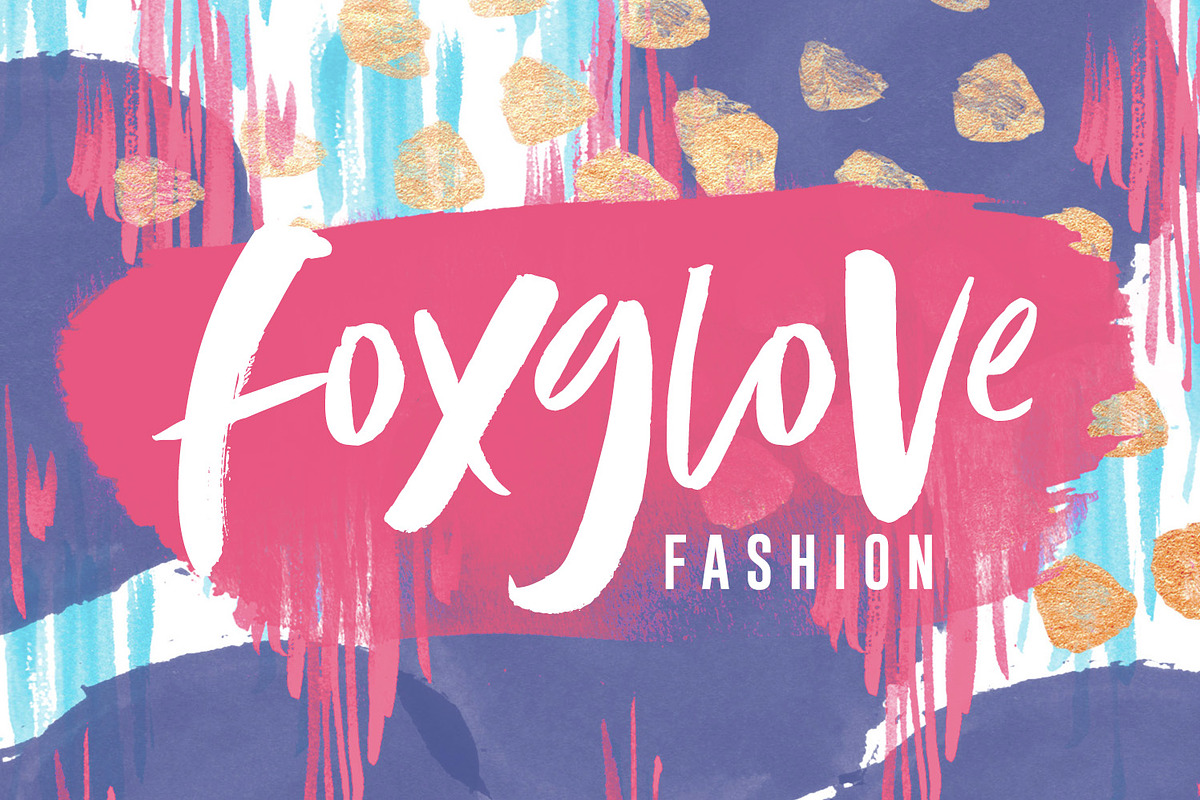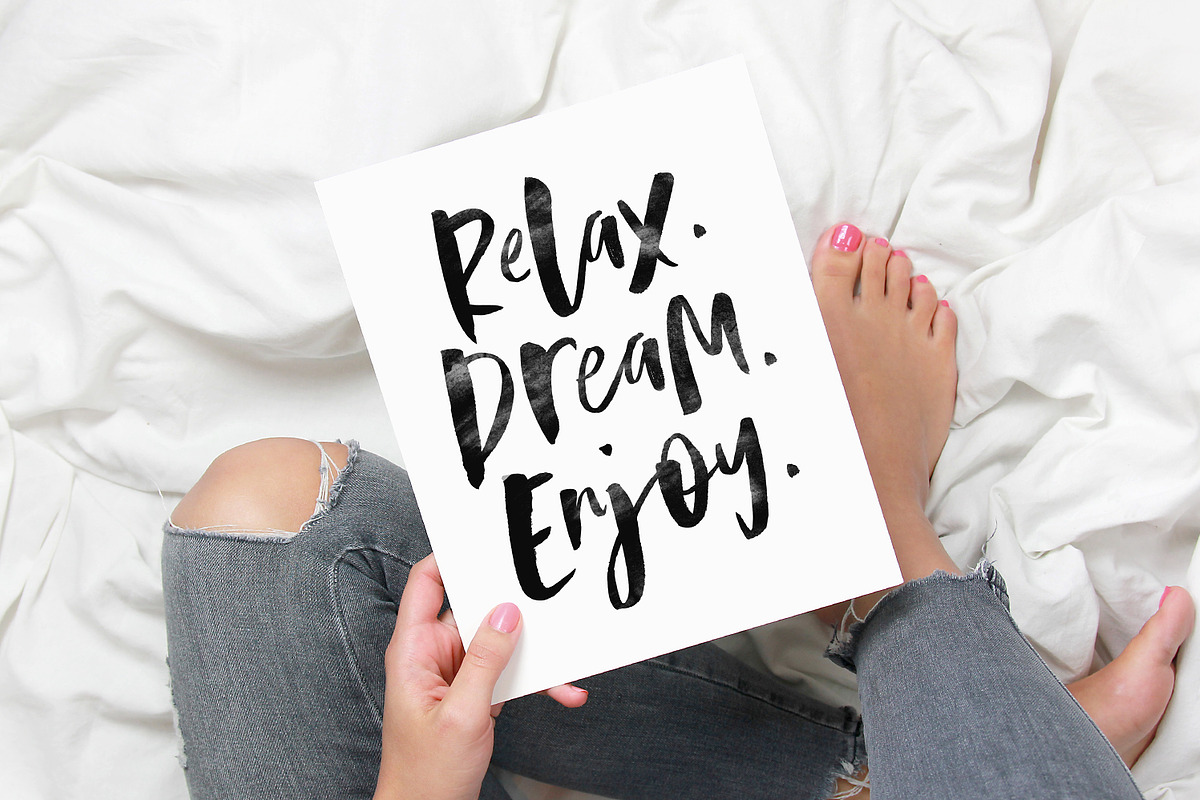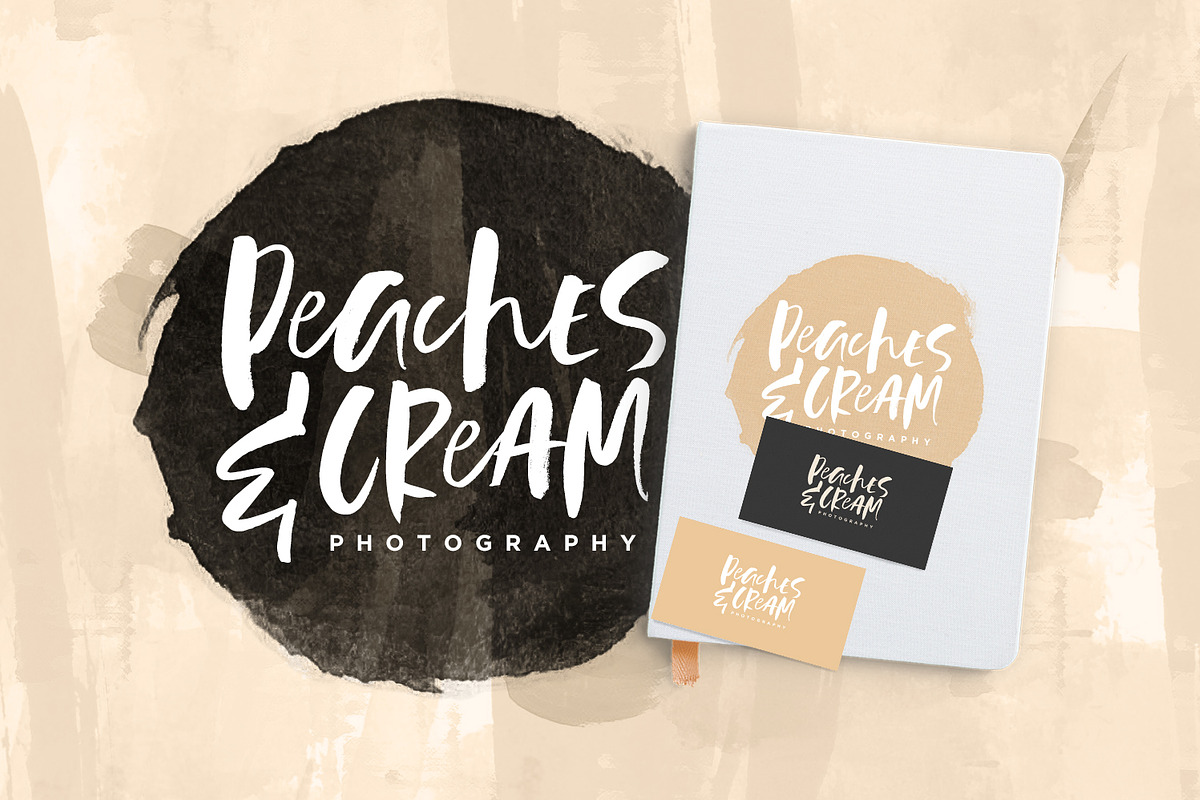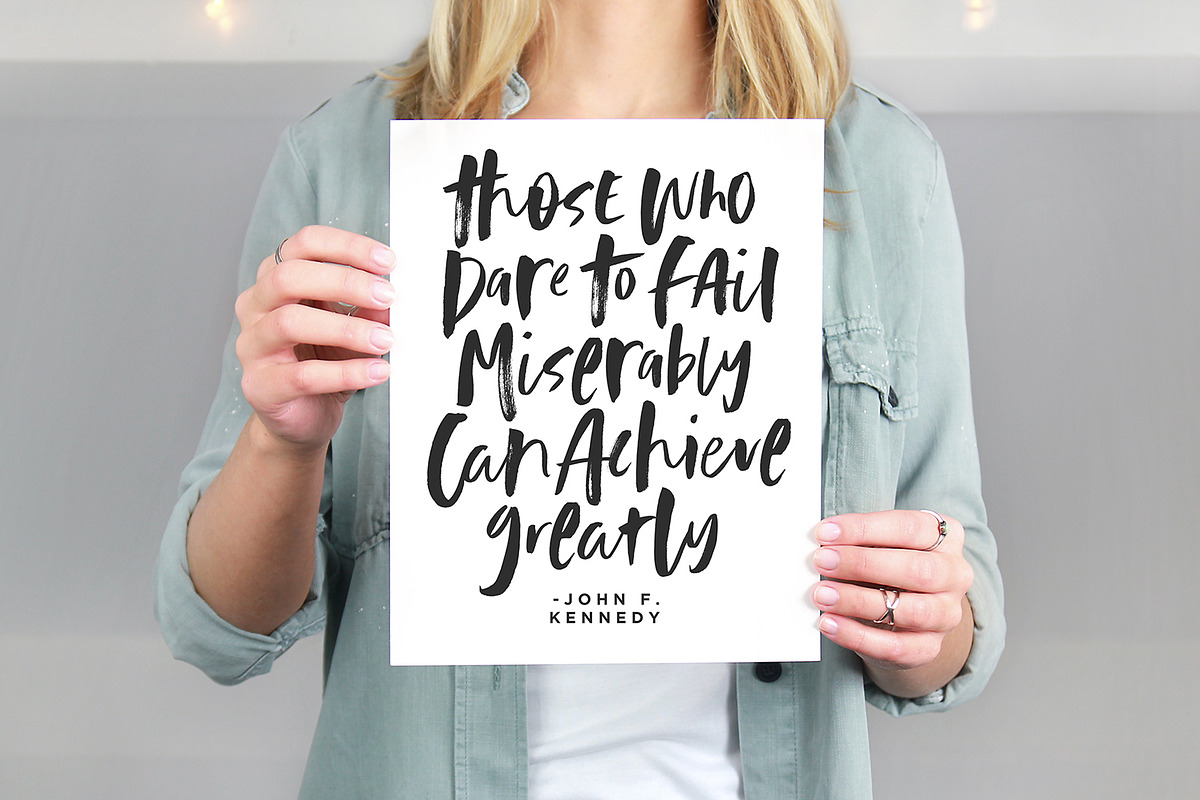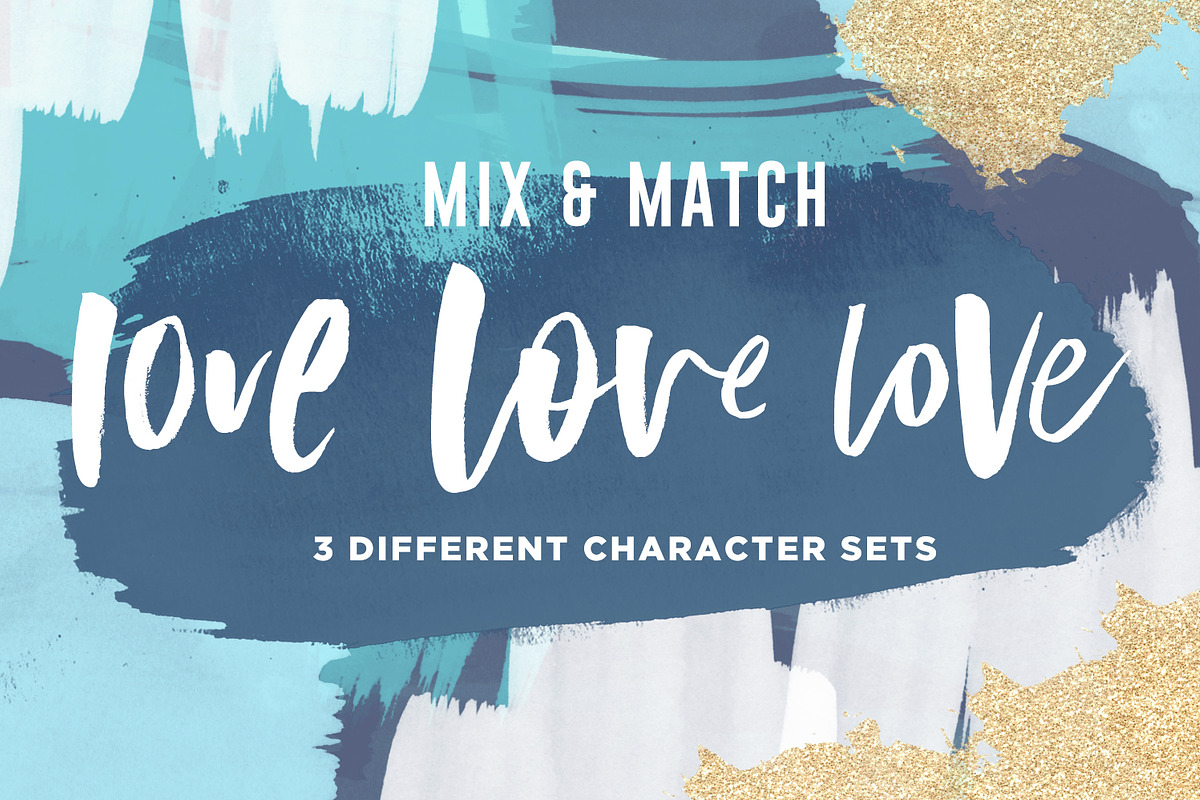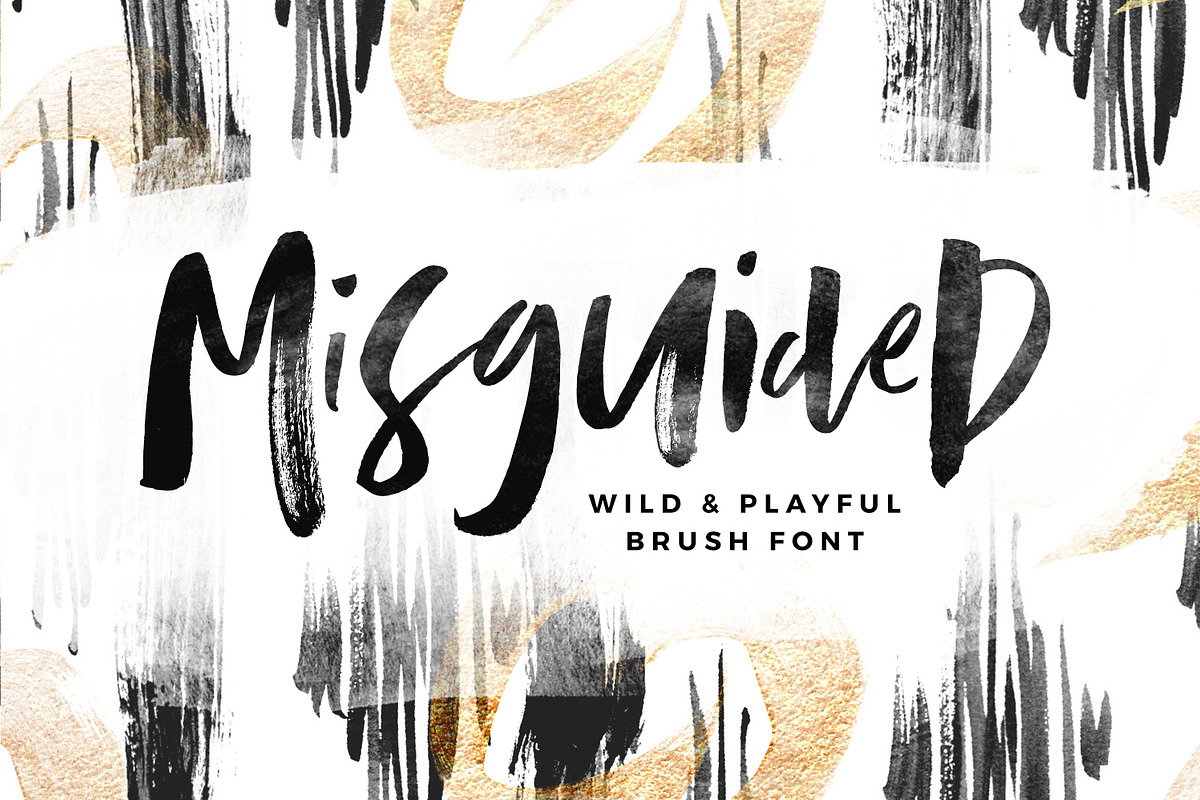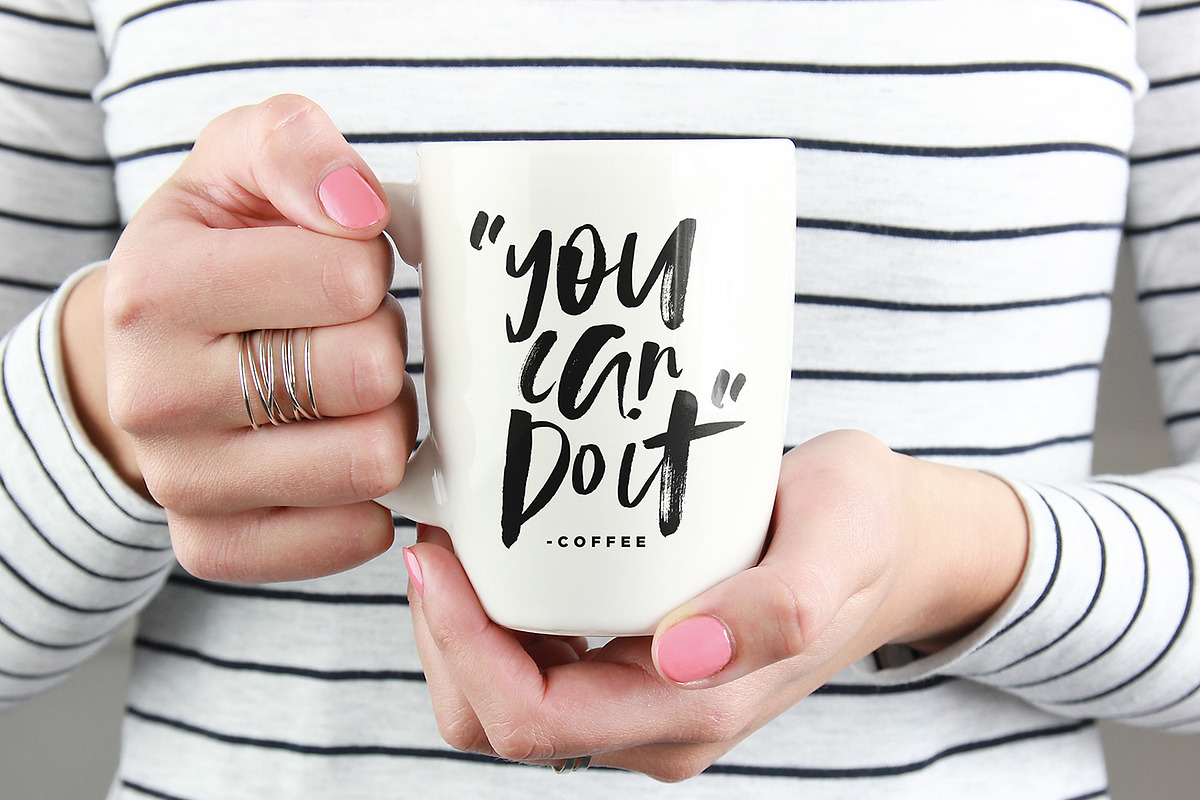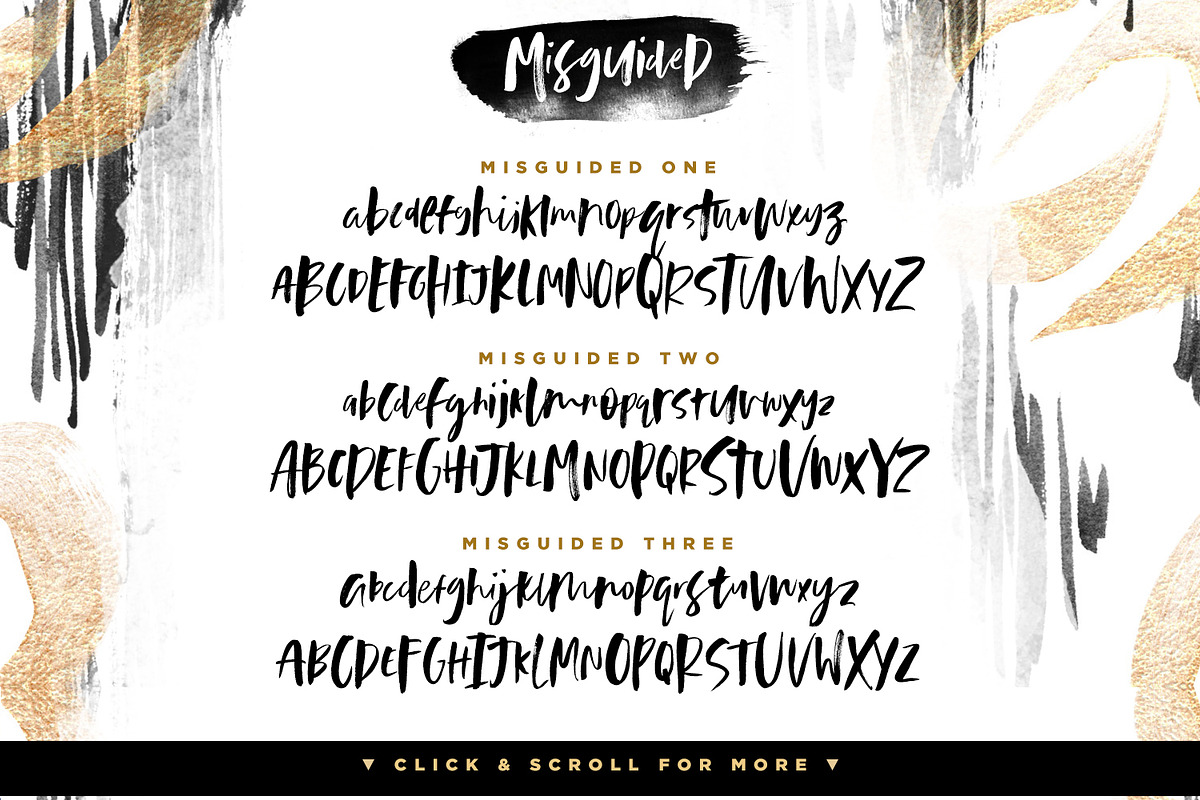
Misguided Brush Font
Misguided Brush Font by Sam Parrett is a font selected for branding, posters, packaging, typography.
- Thick lines, thin lines, small letters, big letters - it has it all, and thrown into THREE hand-painted character sets which can be mixed up
- Misguided One • A hand-painted brush font containing upper & lowercase characters, numerals and a large range of punctuation.
- Misguided Two • This is a second version of Misguided, with a completely new set of upper & lowercase characters.
- Misguided Three • You guessed it; a third version of Misguided, with another completely new set of upper & lowercase characters - giving you
Misguided Brush Font by Sam Parrett fits naturally into Branding, posters, packaging, typography.